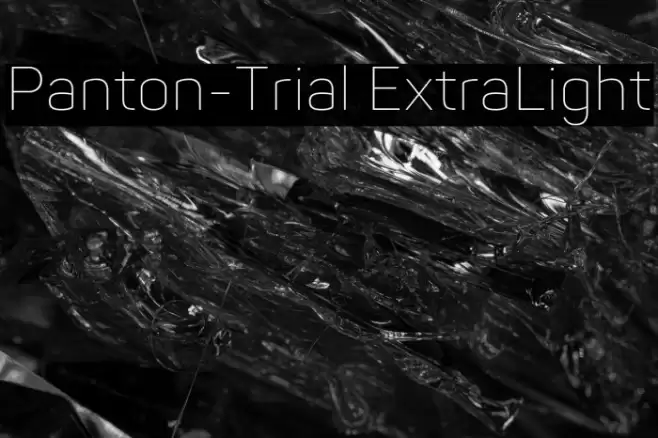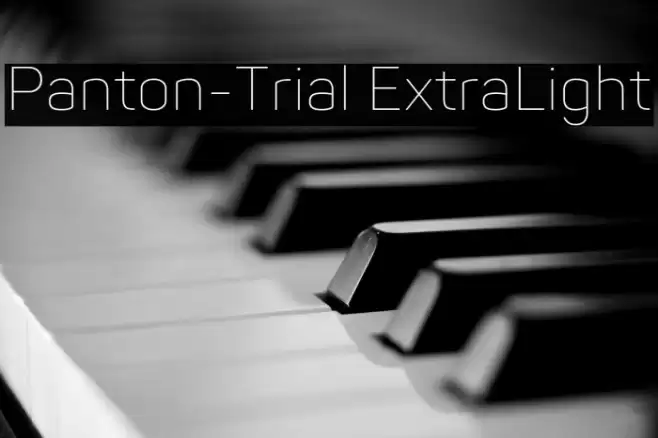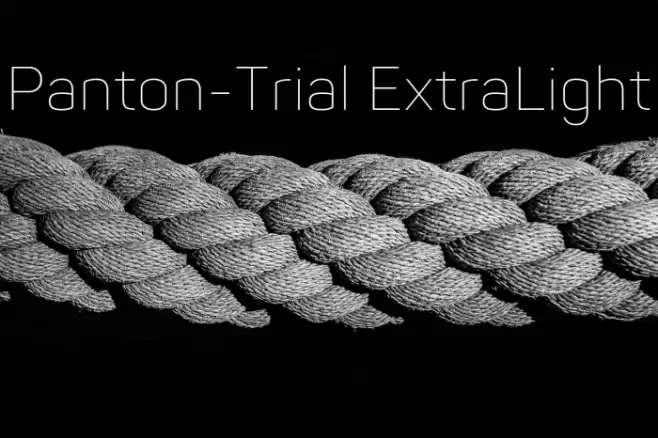
Panton-Trial ExtraLight Font
Panton-Trial ExtraLight Description
This font features a clean and modern sans-serif design with an extra-light weight, making it ideal for minimalist and contemporary projects. The characters are well-proportioned with a geometric structure, providing a sleek and professional appearance. The uppercase and lowercase letters maintain a consistent style, with smooth curves and straight lines that enhance readability. The numerals are clear and distinct, matching the overall aesthetic of the font. Special characters are included, maintaining the uniformity of the design. This font is versatile, suitable for both digital and print media.
A modern, extra-light sans-serif font with a clean and geometric design from Regular fonts.
- Proposed Projects: Ideal for branding, web design, editorial layouts, and minimalist posters.